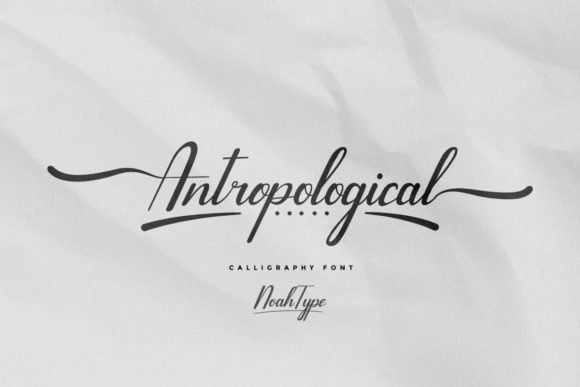
Introduction to Antropological Font
Antropological feels equally charming and elegant.
It looks stunning on wedding invitations, thank you cards, quotes, greeting cards, logos, business cards and every other design which needs a handwritten touch This font is PUA encoded which means you can access all of the glyphs and swashes with ease.
Key Features of Antropological Font